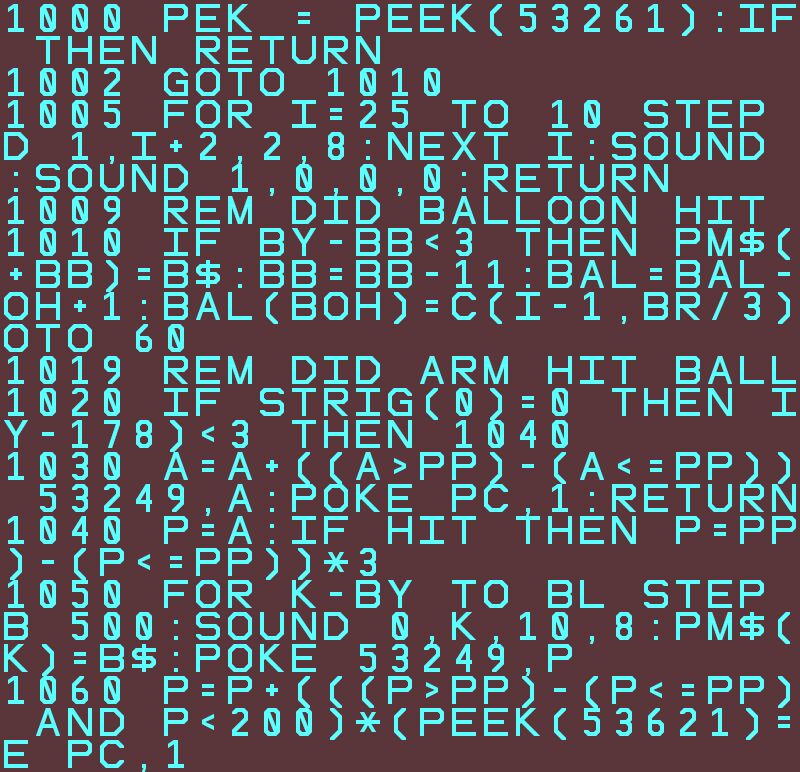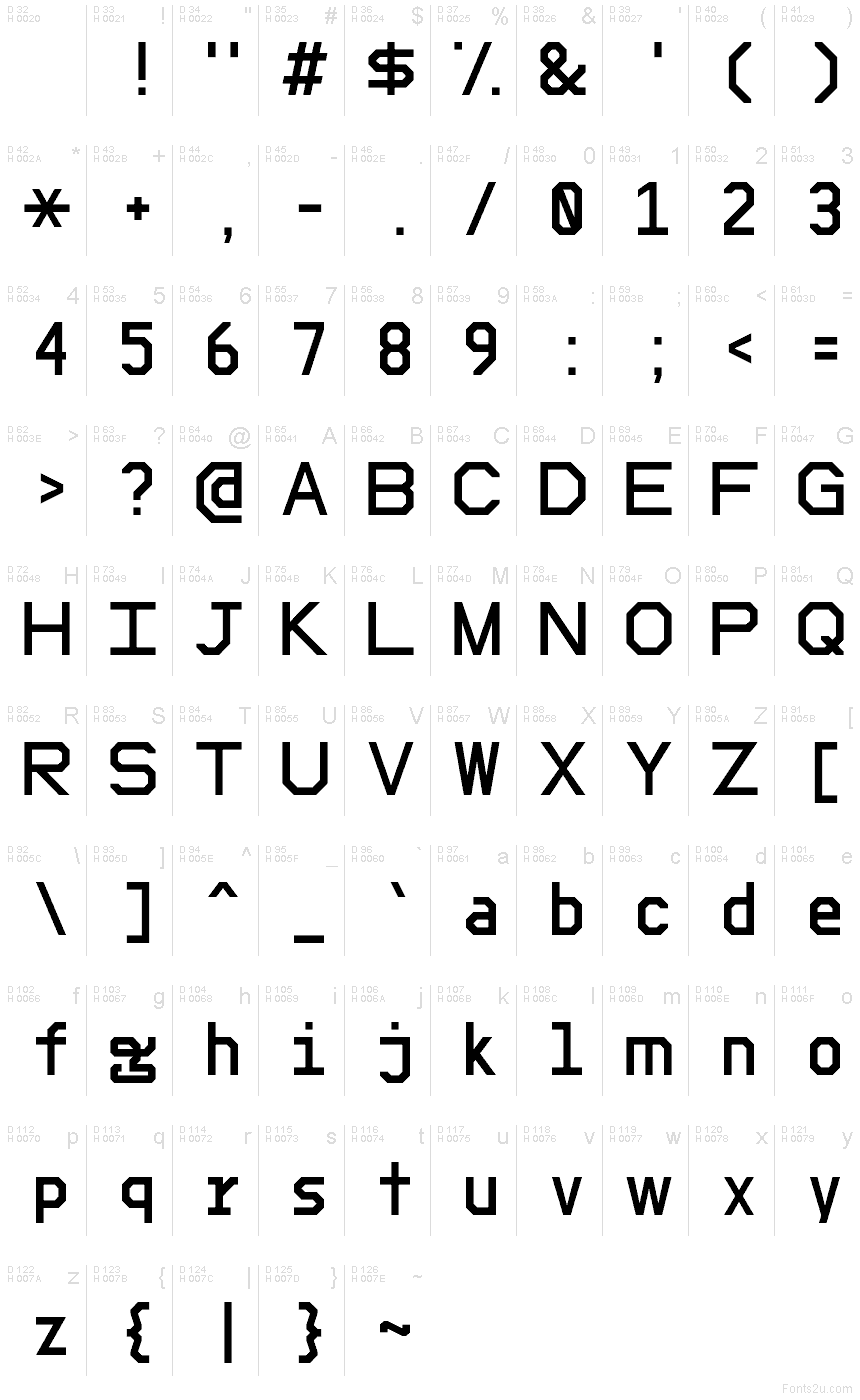
RetraConsole Regular
RetraConsole font by Bryndan Meyerholt is a monospaced font with a fixed width style that brings forth the nostalgic feeling of 80's home computers. Its geometric, clean, and technical design offers a modern feel while preserving a minimalistic style. The characters also feature symbols for legacy computing, 7-segment displays, and arbitrary fraction characters.